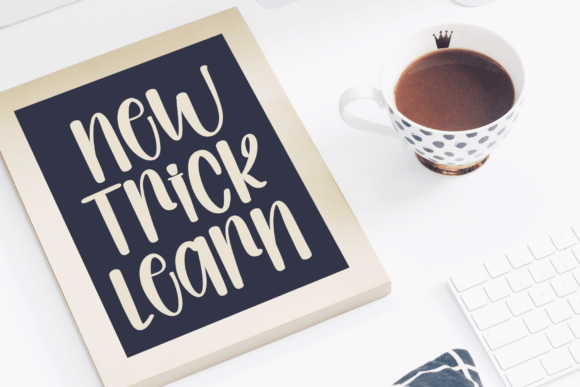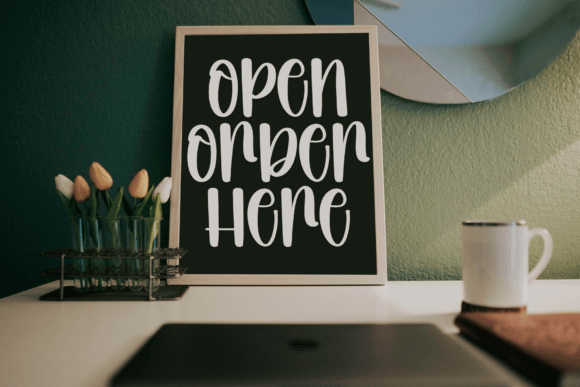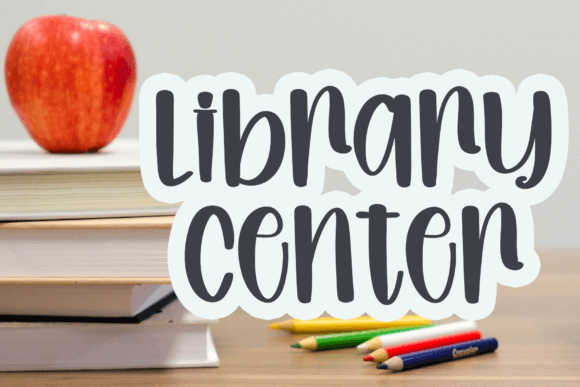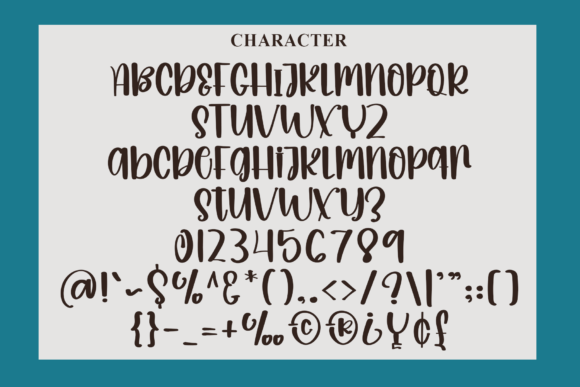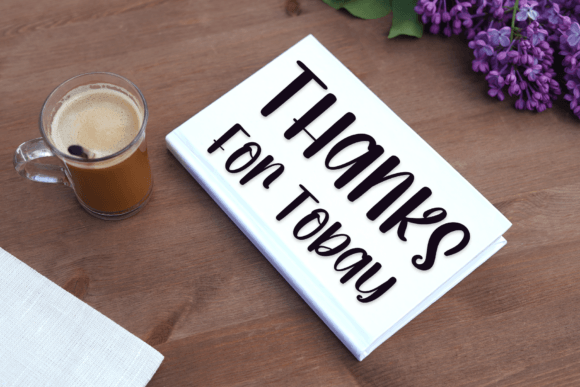
Introduction to Smart Teacher Font
Smart Teacher is a stylish handwritten font with a contemporary atmosphere and impeccable form, inspired by a timeless classic calligraphy.
Balanced and varied, this font was designed to enhance the beauty of your projects This font is PUA encoded which means you can access all of the amazing glyphs and ligatures with ease.
Key Features of Smart Teacher Font